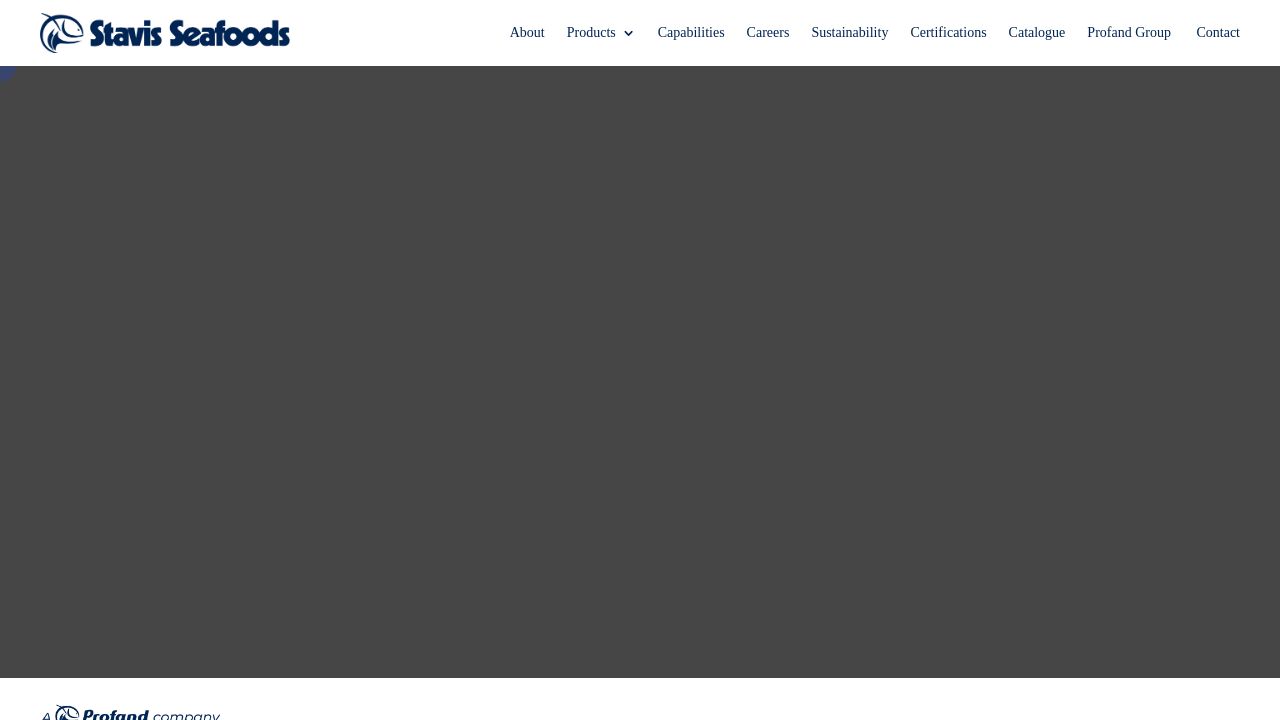
Stavis Seafoods, a global seafood distributor since 1929, utilizes a distinct typographic palette that reflects its commitment to quality and sustainability. The primary use of Helvetica and Montserrat conveys clarity and reliability, appealing to a diverse clientele in the seafood industry. Additionally, custom fonts like ETmodules and dearflip enhance their brand identity while ensuring a cohesive visual experience across their digital platform.
Stavis.com primarily uses Helvetica, Courier New, Montserrat, ETmodules, and dearflip. These fonts create a unique visual identity for the brand.
Montserrat offers a modern aesthetic with a diverse range of weights, making it versatile for headers and body text. It stands out against alternatives like Arial and Roboto.
Montserrat features a wide range of weights from 100 to 900, while ETmodules and dearflip are used in weight 400. This variety allows for flexibility in design.
Custom fonts like ETmodules and dearflip help Stavis Seafoods establish a distinct brand identity, setting them apart from competitors in the seafood distribution industry.